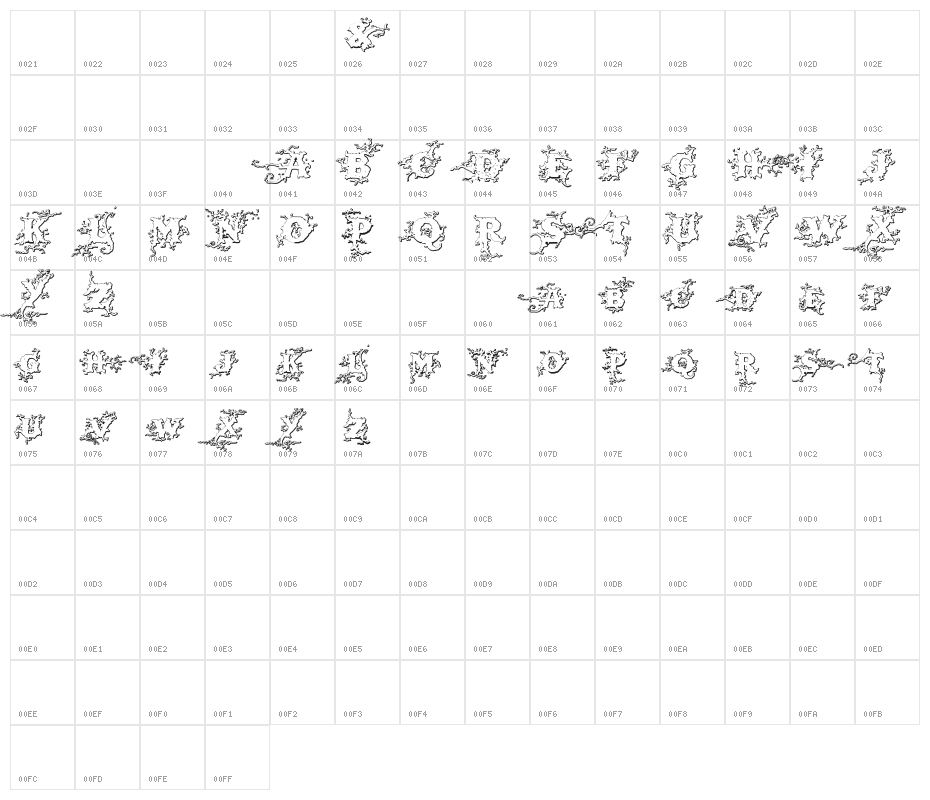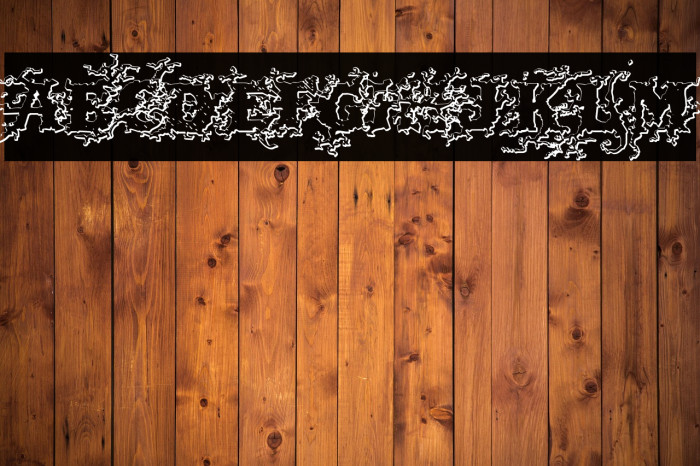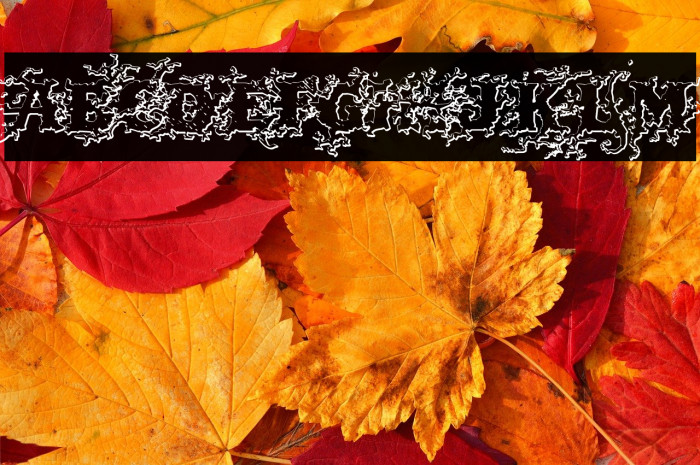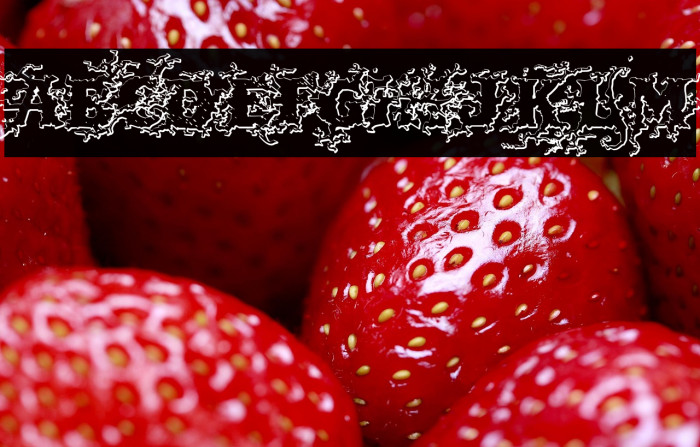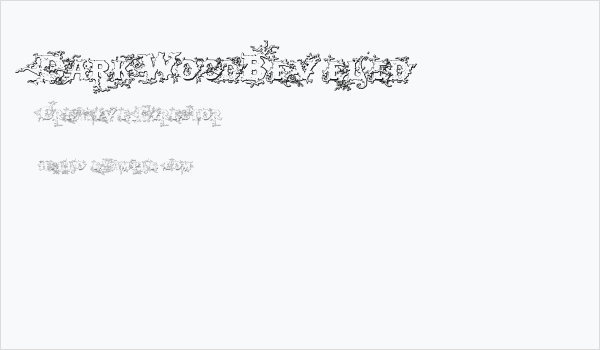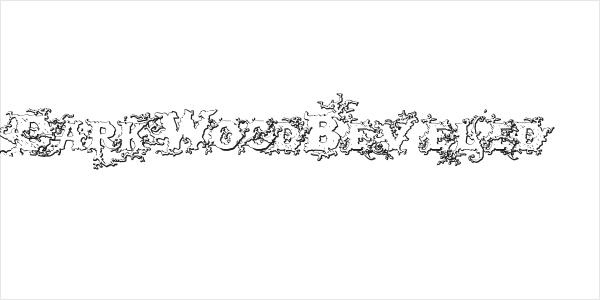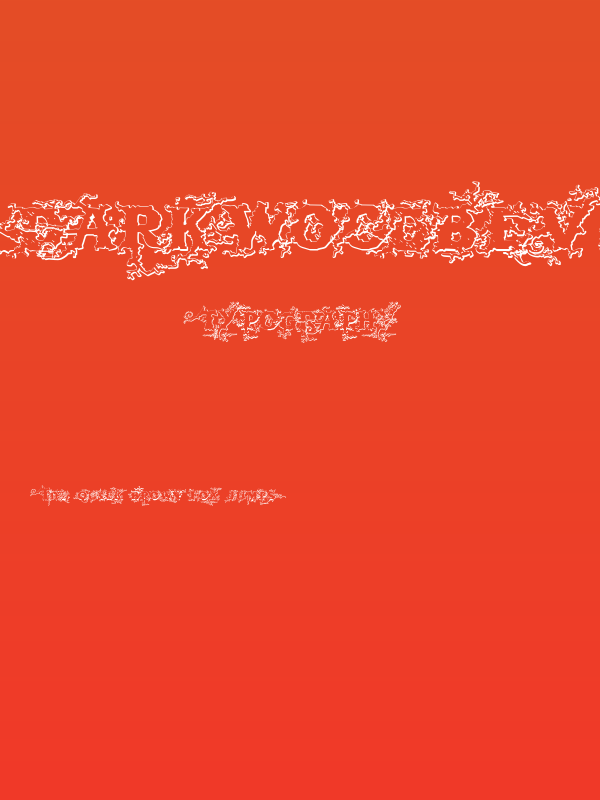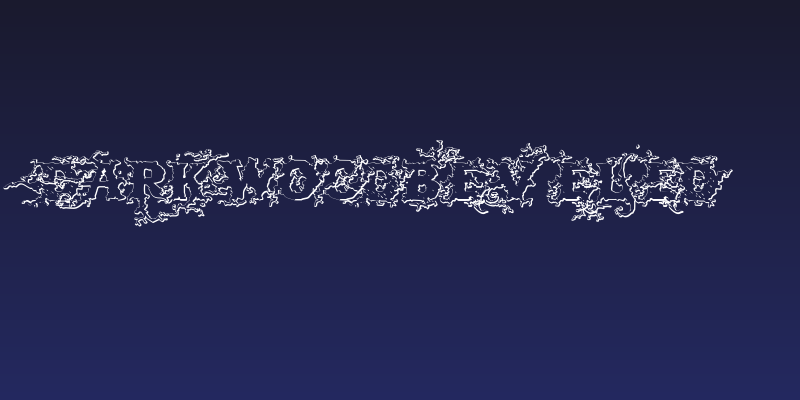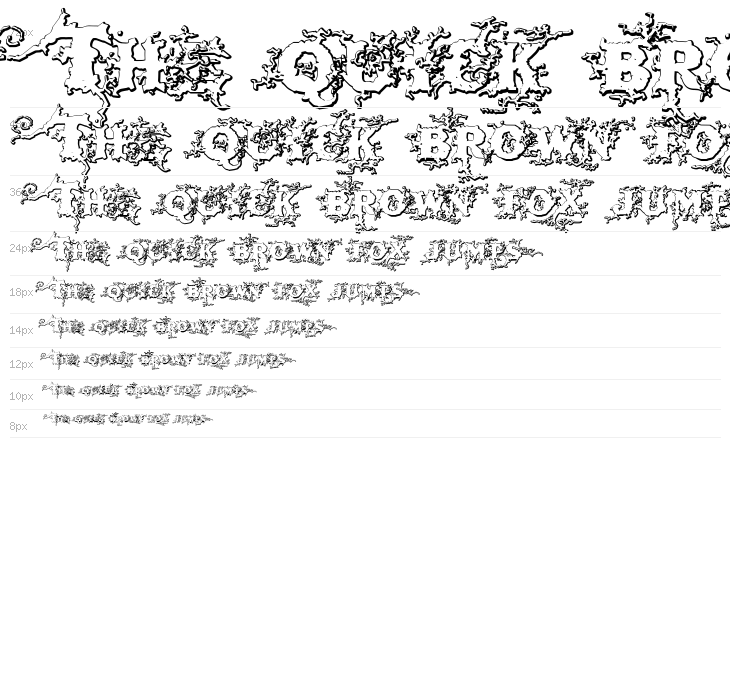
DarkWoodBeveled Font
DarkWoodBeveled Description
This font features an intricate and decorative style, reminiscent of natural elements like vines or wood carvings. Each character is adorned with detailed embellishments that give it a unique, organic appearance. The design is highly ornamental, making it stand out as a display font. The complexity of the design suggests a hand-crafted aesthetic, suitable for projects that require a touch of nature-inspired elegance. The characters maintain a consistent style throughout, with swirling patterns and a sense of movement that adds to the overall visual interest.
| Proposed Projects | Ideal for use in fantasy-themed projects, nature-related branding, or artistic posters. |